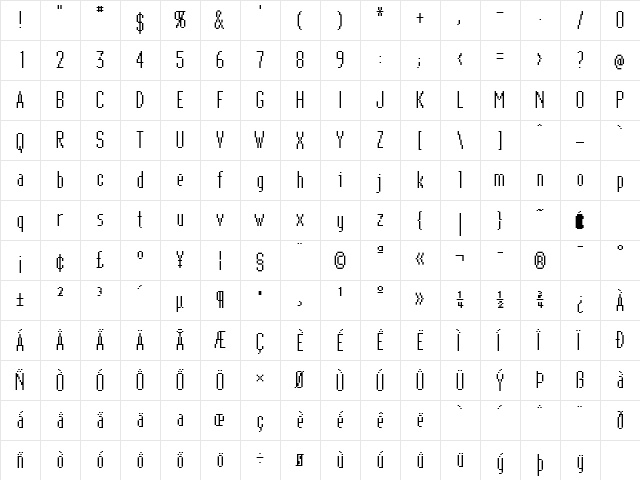
Apple Menue Normal
Design Context for Apple Menue Typeface
Apple Menue is a composed and adaptable typeface that performs quietly and consistently across a wide range of design contexts.